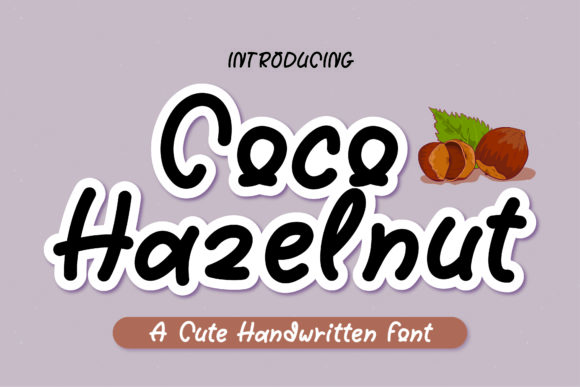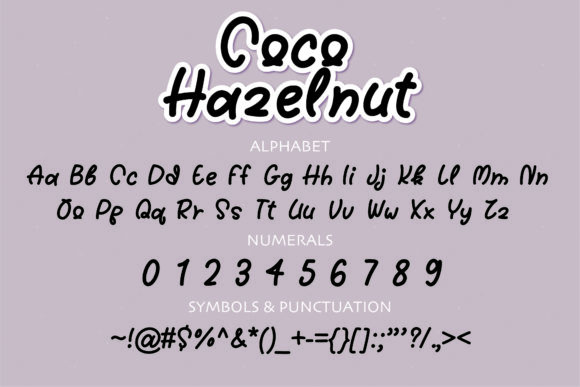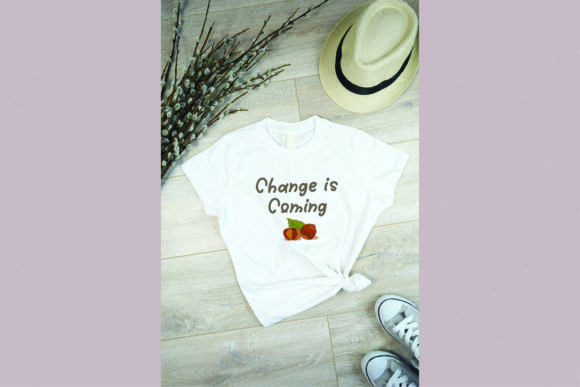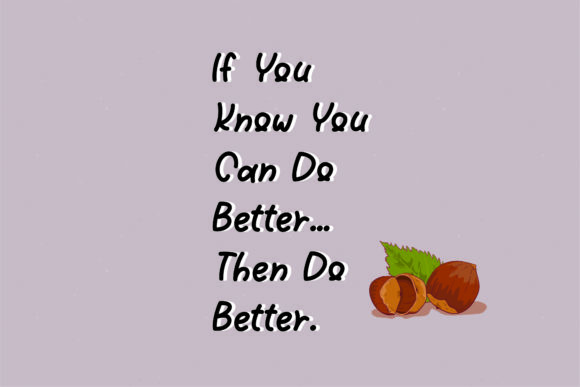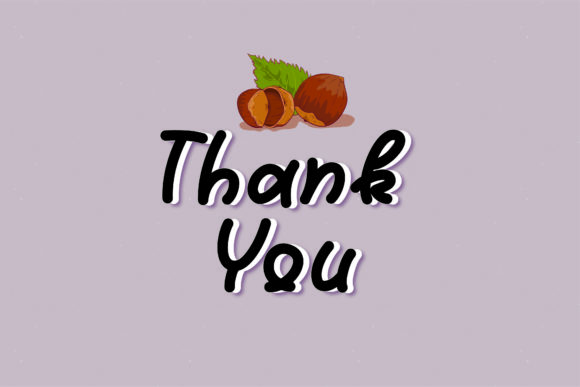
Coco Hazelnut Font
About Coco Hazelnut Font
Coco Hazelnut is a cute and simple lettered handwritten font that can be used for all chalkboard quotes or teaching material! Its authentic look will add a personal and realistic feel to your designs.